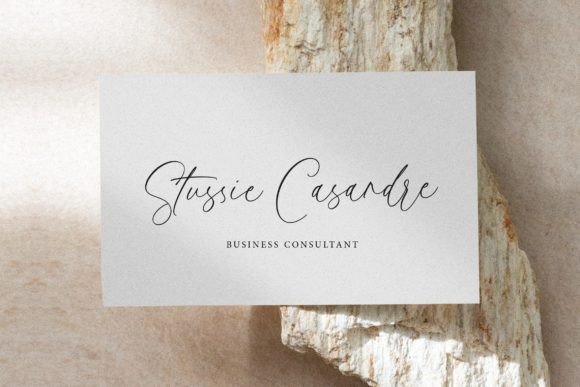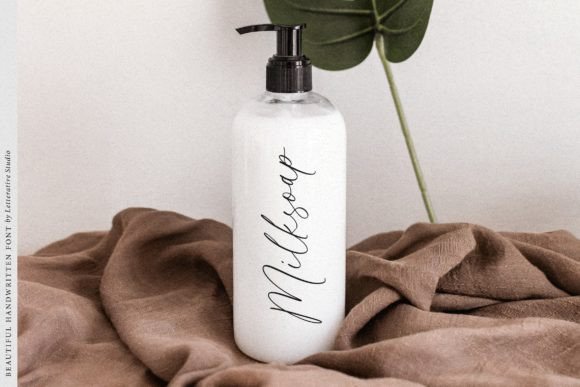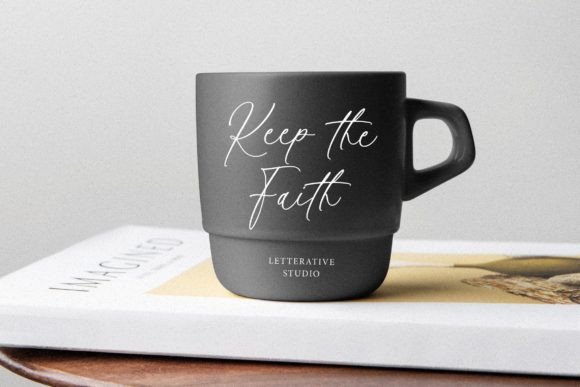
Palmeras Font
Add a Luxurious Touch with Palmeras Font
Palmeras Font is a beautiful handwritten typeface designed to bring elegance and sophistication to your creative projects. With its smooth, flowing strokes and delicate details, this font adds personal touch that’s perfect for a wide range of applications. Whether you’re creating wedding  or website PalmerasFont enhances your designs with charm and style.
Its natural, handcrafted look combines modern appeal with timeless grace, making it a versatile choice for both formal and casual projects.
Versatile Applications of Palmeras Font
PalmerasFont is perfect for many creative uses, including:
• Elegant logos and brand identities
• Wedding invitations and stationery
• Website headers and digital content
• Personal branding materials
• Product and labels
• Social media graphics and quotes
This font’s handwritten elegance makes every design feel unique and inviting, helping your message with your audience.
User-Friendly and Feature-Rich
The font is optimized for readability, with kerning and well-spaced letters that work beautifully at both small and large sizes. This makes it suitable for print and digital projects alike.
Why Designers Choose Palmeras Font
Designers appreciate PalmerasFont for its blend of sophistication and simplicity. It adds a handcrafted feel that enhances personal and professional designs alike. Whether you’re a creative professional or a , this font gives your projects a stylish, luxurious edge.
Use PalmerasFont to make your wedding invitations stand out, create memorable brand logos, or add to your website typography.